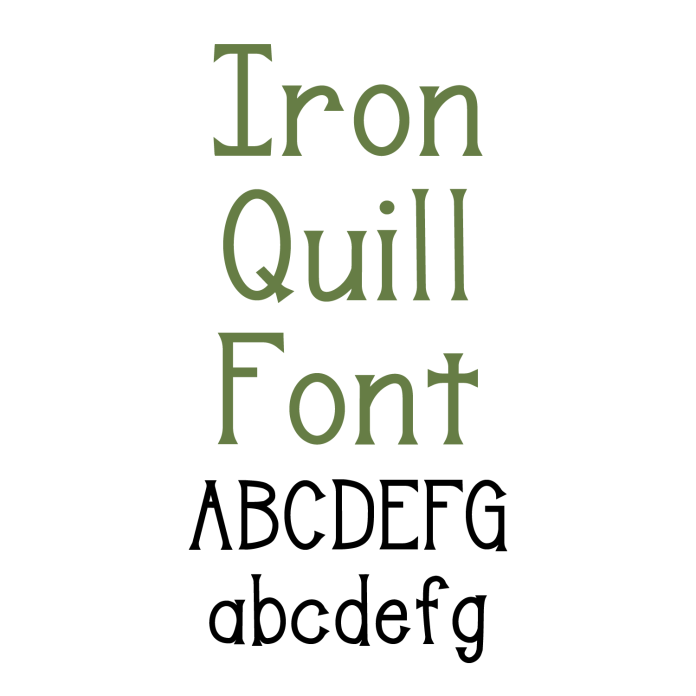
Introducing Iron Quill Font—a charming and bold handwritten playful serif font perfect for adding character to your crafting projects! With its unique letterforms and whimsical serifs, Iron Quill brings a handcrafted feel to stickers, labels, greeting cards, scrapbooking, classroom materials, and custom gifts. Its playful yet classic style is great for both kids’ and grown-up designs, and it cuts smoothly on your cutting machine, making it ideal for vinyl projects and printables. Whether you’re designing DIY home decor or fun paper crafts, Iron Quill Font adds personality and flair. Download now and let your creativity shine!